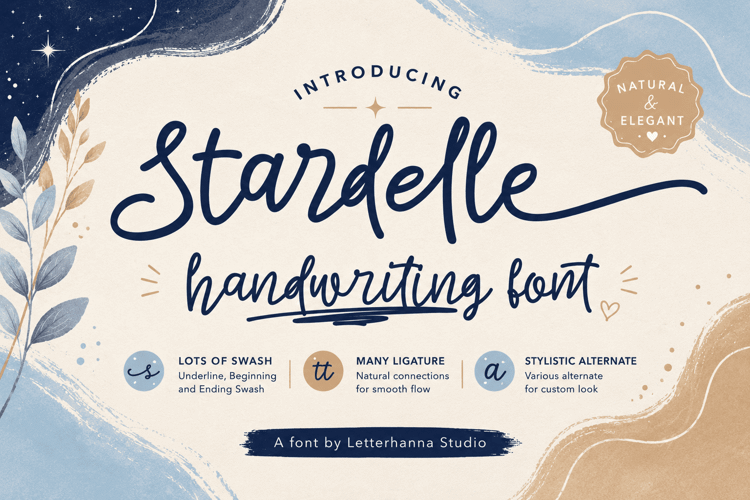
Stardelle Font
Somewhere between a love letter and a logo lives Stardelle.
This script was never meant to be perfect — and that's exactly what makes it work. The natural quirks in each letterform, the way strokes connect without forcing it, the slight bounce and flow that feels like someone actually picked up a pen and meant it — that's the soul of this font.
Stardelle is built for designs that need to feel human. Boutique branding that wants warmth over corporate. Wedding suites that need personality over formality. Packaging that makes someone pause and say, "I love how this feels."
Because the best handwriting doesn't just look good. It feels like someone.
This is a font for creators who are tired of sterile perfection. For brands that want to feel like a person, not a corporation. For invitations, journals, packaging, logos, and social content that carries genuine character — the kind you can't fake with a template.